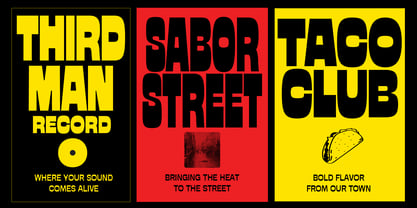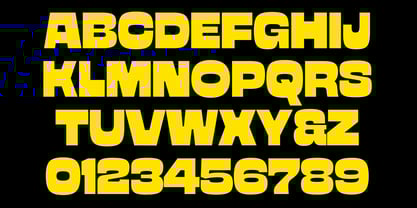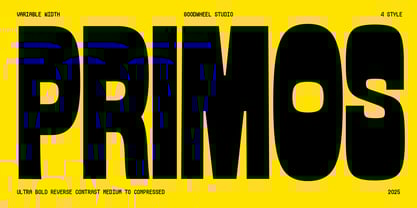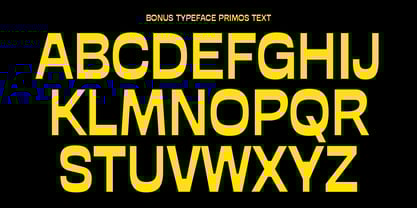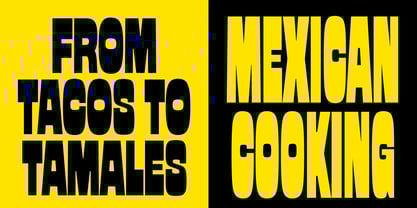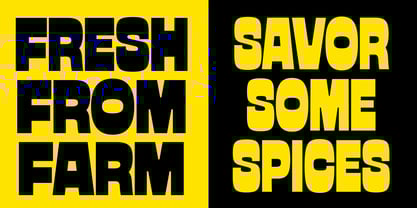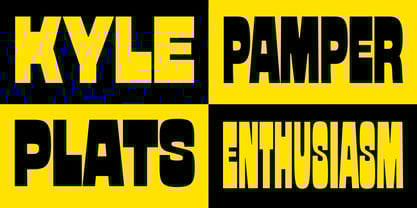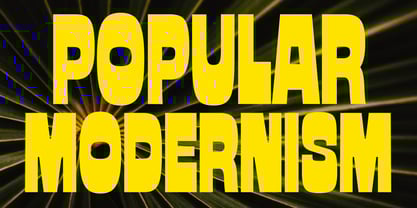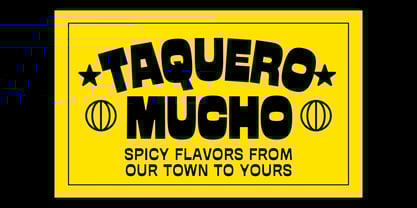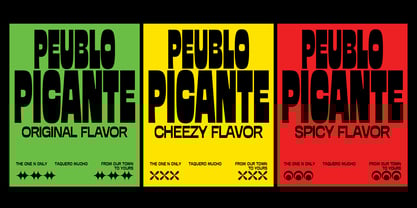
GW Primos
by Goodwheel Studio
The GW Primos Font Family was designed by Ilham Herry and published by Goodwheel Studio. GW Primos contains 6 styles and family package options. More about this family
GW Primos is a bold statement in the world of display typography — loud, confident, and full of personality. Designed with ultra-bold weight and a unique reverse contrast, this font flips the traditional balance of thick and thin strokes, giving your headlines and logos a striking, unforgettable edge. With its medium to compressed proportions, GW Primos packs attitude and impact into every letter, making it perfect for posters, branding, and anything that demands attention. Plus, as a variable font with a width axis, you’ve got the flexibility to stretch or tighten the vibe to fit your design mood. Supporting 89 languages, GW Primos is built for global expression — whether you’re crafting something bold in English, Spanish, or beyond. Available in both static and variable versions, this font is ready to flex however you need it.
Designers: Ilham Herry
Foundry: Goodwheel Studio